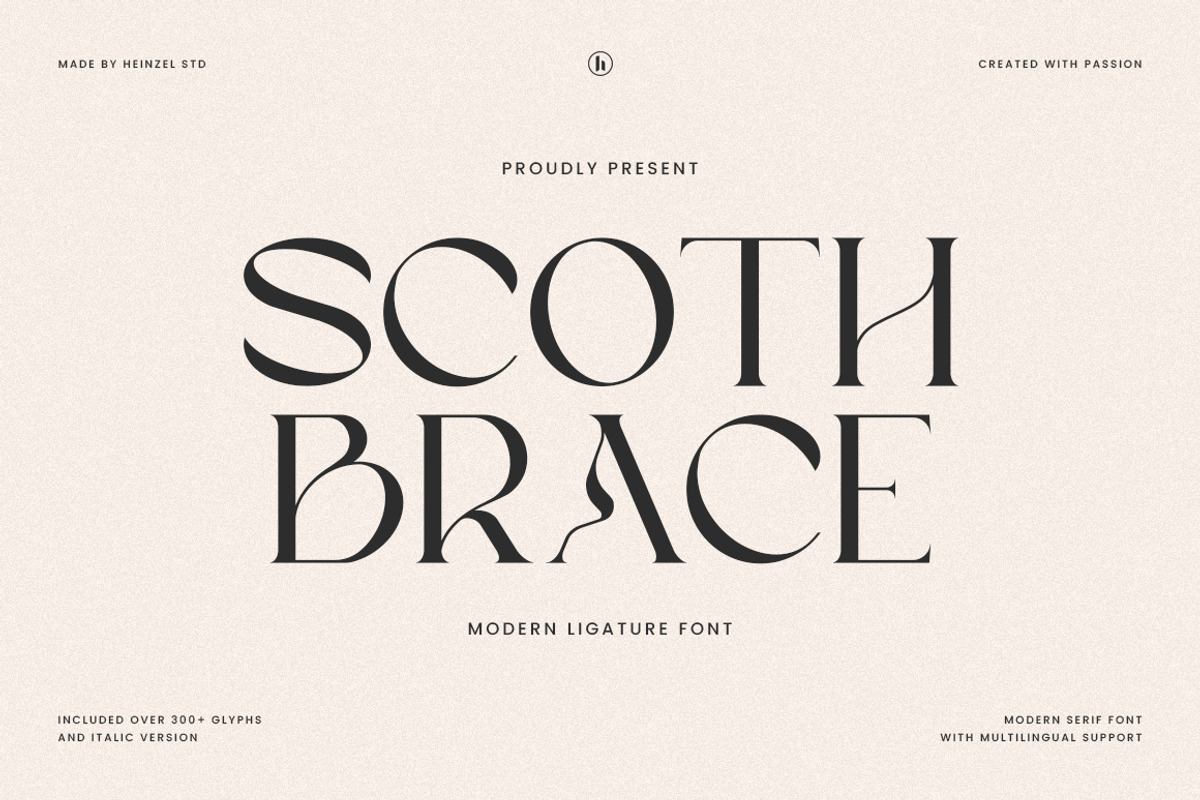
Scoth Brace Modern Ligature Serif Font
Introducing Scoth Brace, a modern serif typeface designed by Heinzel Std. This font features elegant ligatures and a unique style, making it suitable for various design projects.
Features:
• Style Included: Regular
• Character Set: Uppercase and lowercase letters, numerals, and basic punctuation
Usage Recommendations:
Scoth Brace is ideal for:
• Headlines
• Logos
• Posters
• Branding materials
• Invitations